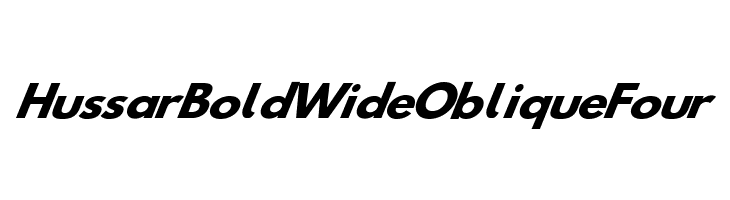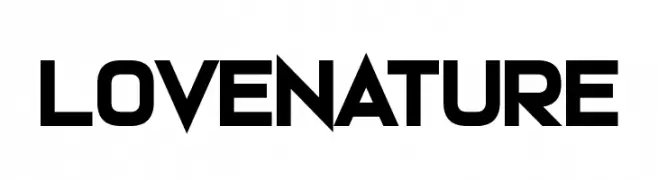
A whimsical, snow-themed decorative font with intricate details.
A bold, angular font with a geometric, modern design.
A futuristic, geometric font with sharp angles and a tech-inspired design.
A sleek, modern font with tall, narrow characters and a uniform stroke width.
A playful font with characters inside golf ball designs, ideal for sporty themes.
A playful font with letters embedded in school-themed doodles.
A bold, wide, and oblique font with a modern and dynamic style.
A modern sans-serif font with geometric shapes and uniform strokes.